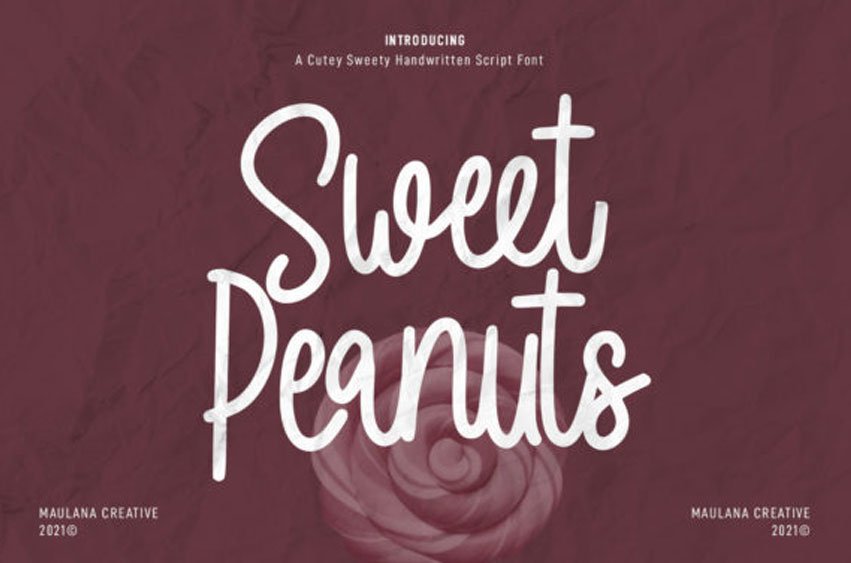
Sweet Peanuts Font
Sweet Peanuts Font is a well-balanced and delicate script font that exudes elegance and class.
This font was particularly crafted for those who need a beautiful and refreshing look to their designs.